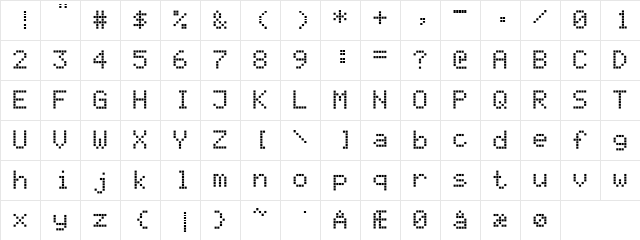
Register Regular
Design Context for Register Typeface
Register is a composed and adaptable typeface that performs quietly and consistently across a wide range of design contexts.